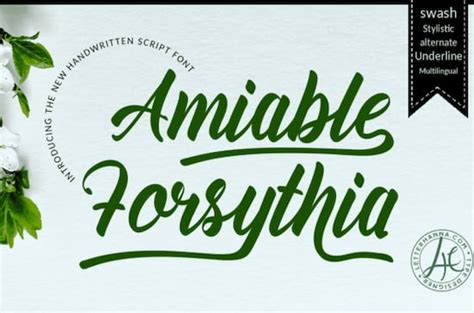
Decoding The I Forsythia Font: A Comprehensive Guide
Decoding the I Forsythia Font: A Comprehensive Guide
Hey guys! Ever stumbled upon a font that just screams elegance and sophistication? Well, chances are you might have encountered the I Forsythia font . This beauty isn’t just another typeface; it’s a statement. In this comprehensive guide, we’re going to dive deep into everything you need to know about the I Forsythia font, from its origins and characteristics to its best uses and where to find it. So, buckle up and let’s get started!
What is the I Forsythia Font?
At its core, the I Forsythia font is a typeface designed to bring a touch of class and readability to any project. Often characterized by its clean lines, balanced letterforms, and overall aesthetic appeal, it stands out in a crowded font market. But what makes it so special? Let’s break it down.
History and Origin
Understanding where a font comes from can give you a deeper appreciation for its design. While the exact origins of the I Forsythia font can sometimes be murky (depending on the specific version or designer), it generally aims to capture the essence of modern typography with a nod to classical forms. Think of it as a contemporary twist on traditional elegance. It’s often inspired by the desire to create a font that is both functional and beautiful, suitable for a wide range of applications. The designers usually focus on making it versatile, ensuring it works well in both headings and body text.
Key Characteristics
• Clean Lines: One of the defining features of I Forsythia is its crisp, clean lines. This makes it easy on the eyes and highly readable.
• Balanced Letterforms: Each letter is carefully crafted to ensure balance and harmony. This attention to detail contributes to the font’s overall polished look.
• Versatility: I Forsythia isn’t a one-trick pony. It works well in various contexts, from digital designs to print materials.
• Elegant Aesthetic: There’s an undeniable elegance to I Forsythia. It exudes sophistication without being overly ornate.
Why Choose I Forsythia?
So, why should you consider using the I Forsythia font in your projects? Here are a few compelling reasons:
Readability
First and foremost, I Forsythia is designed with readability in mind. Its clean lines and balanced letterforms make it easy to read, even in large blocks of text. This is crucial for ensuring your message gets across effectively.
Versatility
Whether you’re designing a website, creating marketing materials, or working on a print project, I Forsythia can adapt to your needs. Its versatility makes it a valuable asset in any designer’s toolkit.
Professionalism
Using I Forsythia can instantly elevate the professionalism of your work. Its elegant aesthetic conveys a sense of sophistication and attention to detail, which can help you make a strong impression.
Aesthetic Appeal
Let’s face it: looks matter. I Forsythia is simply a beautiful font. Its balanced letterforms and clean lines create a visually pleasing effect that can enhance the overall aesthetic of your project.
Best Uses for I Forsythia
Now that you know what makes I Forsythia so great, let’s talk about how to use it effectively. Here are some of the best applications for this versatile font:
Branding
I Forsythia font is an excellent choice for branding projects. Its elegant aesthetic can help you create a sophisticated and memorable brand identity. Use it in your logo, website, and marketing materials to convey a sense of professionalism and quality.
Web Design
In the realm of web design, I Forsythia shines as both a heading and body text font. Its readability ensures that your website is easy to navigate and your content is accessible to all users. Plus, its elegant aesthetic can help you create a visually appealing website that stands out from the crowd.
From brochures and business cards to posters and flyers, I Forsythia is a reliable choice for print materials. Its clean lines and balanced letterforms ensure that your text is legible and visually appealing, even in small sizes.
Editorial Design
If you’re working on a magazine, book, or other editorial project, I Forsythia can help you create a polished and professional look. Use it for headings, subheadings, and body text to enhance the readability and aesthetic appeal of your publication.
Invitations and Stationery
For invitations, cards, and other stationery items, I Forsythia adds a touch of elegance and sophistication. Its refined aesthetic makes it perfect for conveying a sense of formality and occasion.
Conclusion
The I Forsythia font is a versatile and elegant typeface that can enhance the look and feel of a wide range of projects. Whether you’re working on branding, web design, print materials, or editorial design, I Forsythia can help you create a polished and professional look. By understanding its history, characteristics, and best uses, you can effectively incorporate it into your designs and make a lasting impression.